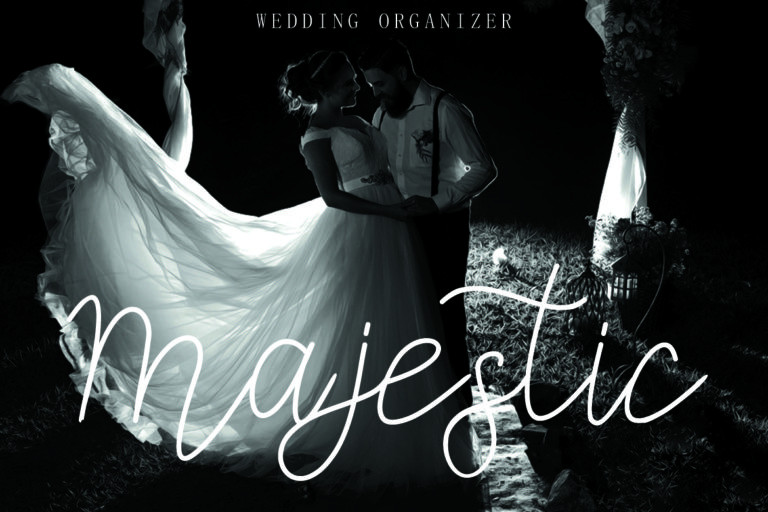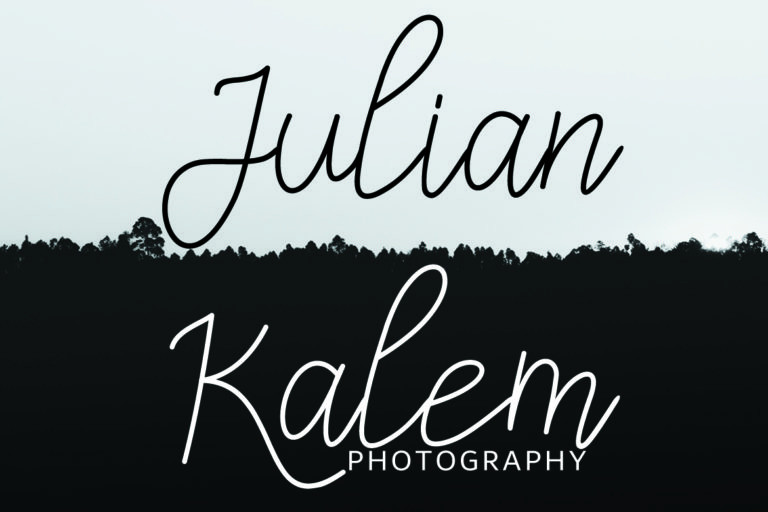
Kelly Leevan Handwritten Font
Kelly Leevan is a simple and beauty handwritten font. A perfect addition to the professional designer’s font.
This font will perfect for many different project ex: logo, blogging, quotes, branding, fashion, apparel, photography, watermark, header, poster, wedding, letter, invitation, stationery, and many more!